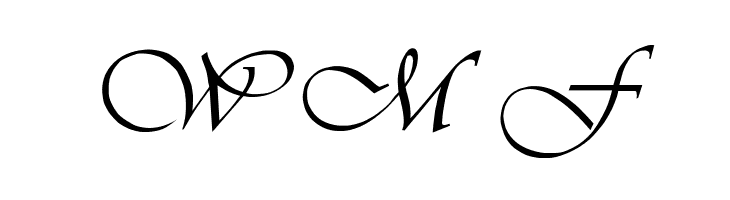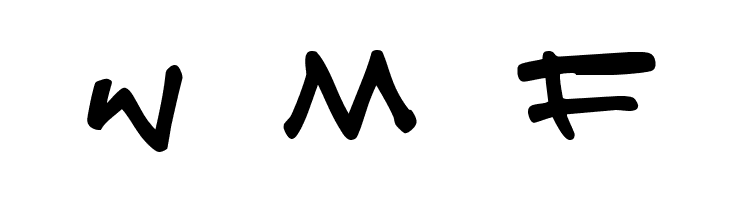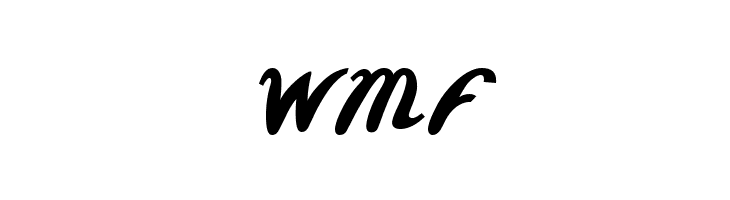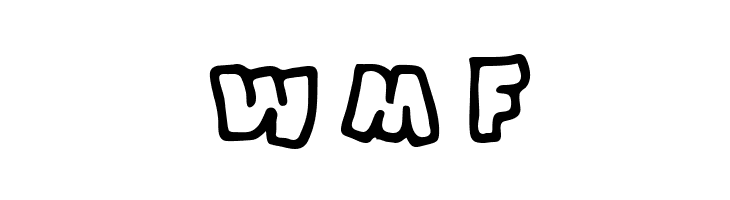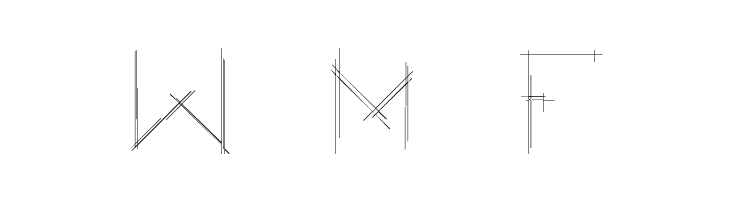
An elegant, cursive font with intricate swashes and a refined, artistic style.
A bold, graffiti-inspired font with dynamic, hand-drawn strokes.
A bold, flowing script font with a vintage, dynamic style.
A bold, playful graffiti-style font with thick, rounded characters.
A geometric, linear font with intersecting lines and boxed numerals.